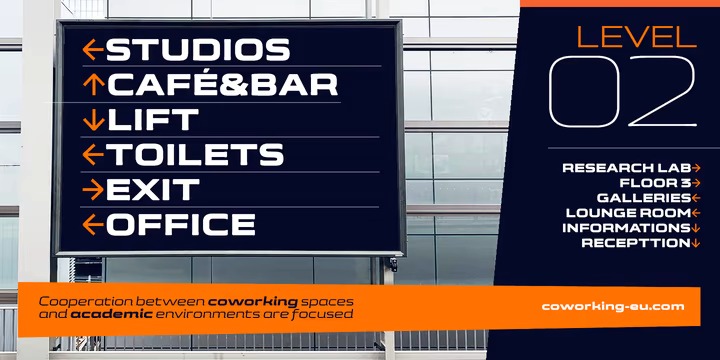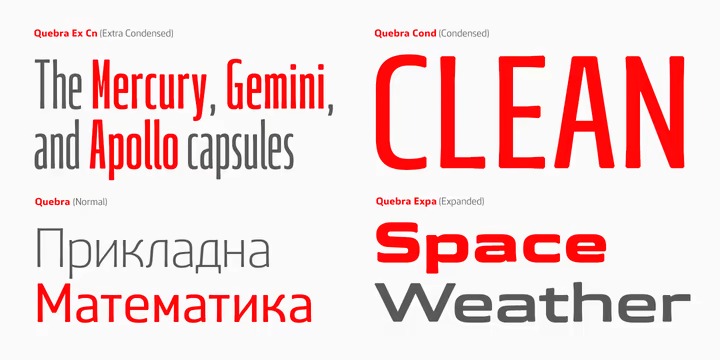
Quebra Expa Font Family
Quebra Expa Sans Serif Font
This font is a strong, static grotesque. Round shapes tend to square. It’s an extend display sans-serif font family, available with four widths (Extra Condensed, Normal and Expanded) and ten weights, italics versions are available. The main strokes contain small breaks simulating modulated variations on the letterforms, these details are more present on large body sizes. All font versions contain Latin and Cyrillic encoding characters and also ligatures, case-sensitive forms, fractions, oldstyle and finally tabular figures.